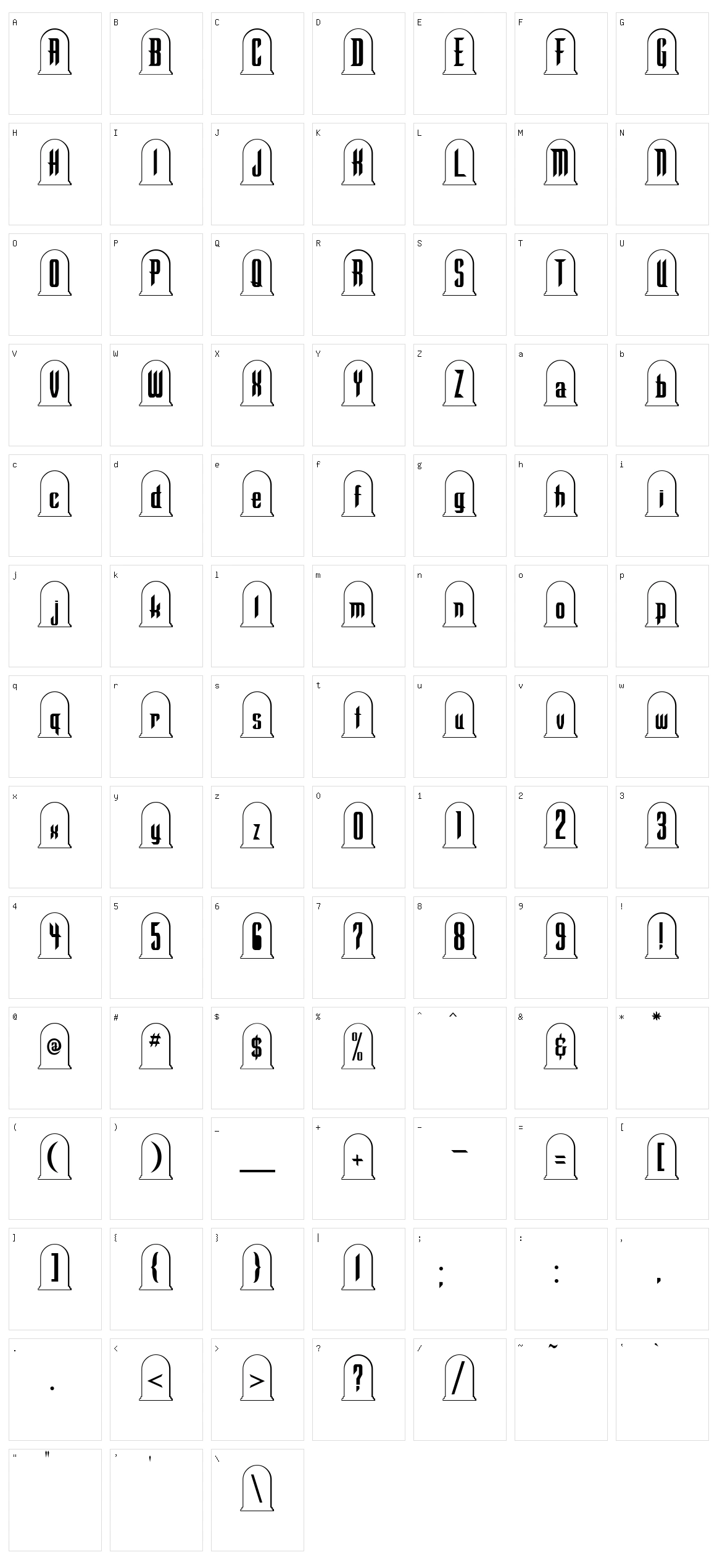
The free font Graveyard is carefully designed by Audio Electric Systems, showcasing a thoughtful balance of creativity and usability and falls under the Halloween font style. When you download the ZIP file, it contains only 21.53 KB of font files, making it lightweight and quick to download. Please review the license details below to understand permitted usage and distribution rights. If license information is not available, we recommend using this font for personal projects only or contacting the author directly for commercial usage permissions.